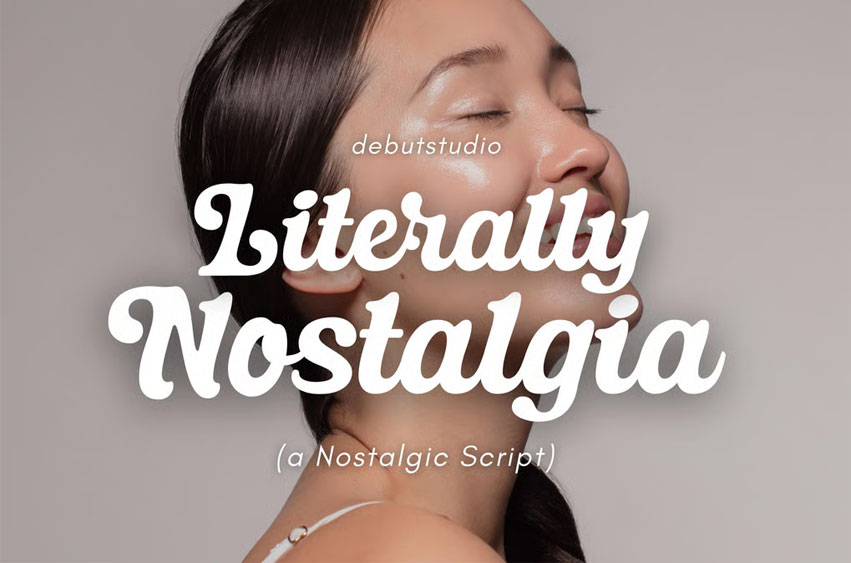
Literally Nostalgia Font
Literally Nostalgia Font is a Nostalgic Script. This Script is a special typeface because it’s designed for those of you who need a script font to design something that reminds you of your good old days.